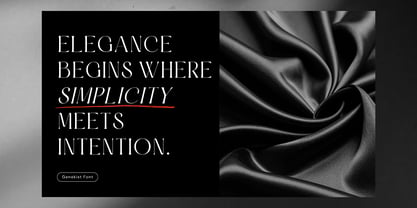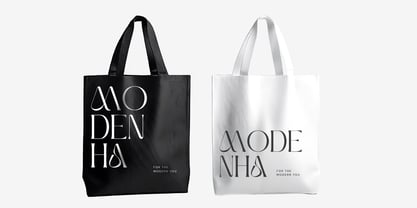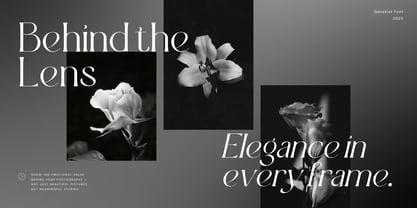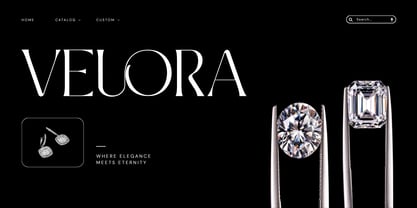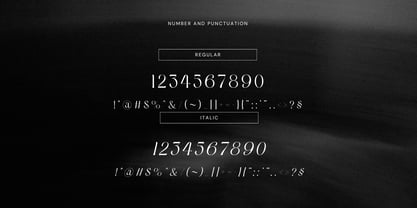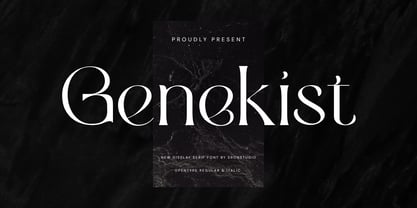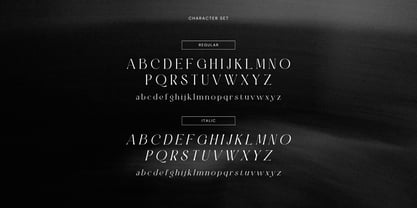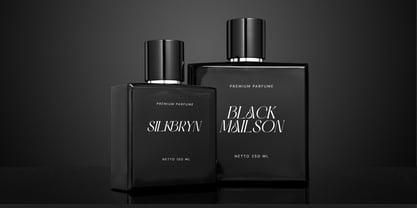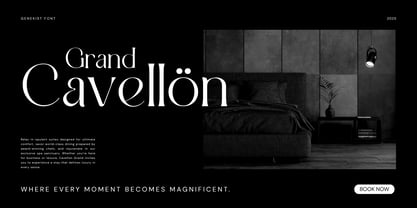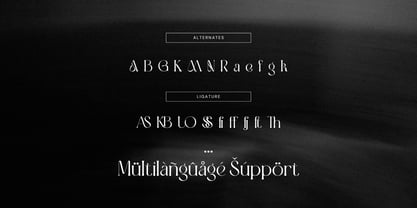
Genekist
by Sronstudio
The Genekist Font Family was designed by Muhamad Yusron Billah and published by Sronstudio. Genekist contains 2 styles and family package options. More about this family
Genekist is an elegant serif font that embodies timeless beauty and sophistication. With its refined letterforms, high contrast strokes, and graceful curves, this font is perfect for luxury branding, editorial layouts, invitations, and fashion-related designs. Genekist blends classic elegance with a modern touch, making every project look polished and professional. What’s Included: - Alternates & ligatures - Numerals & punctuation - PUA encoded for easy access - Multilingual support - Works seamlessly on Mac & Windows Thank you very much 🙂